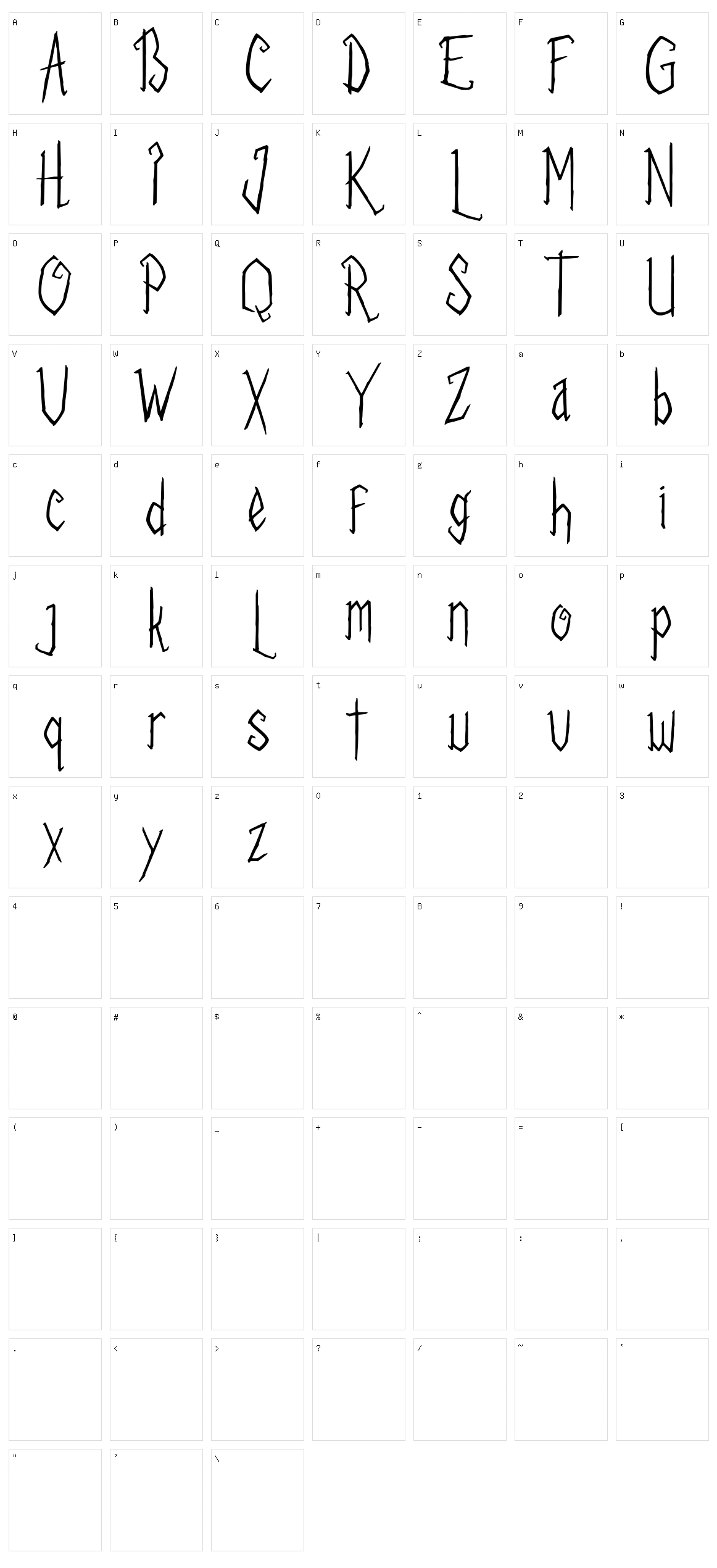
The free font Silent Night is carefully designed by tkztype, showcasing a thoughtful balance of creativity and usability and falls under the Halloween font style. When you download the ZIP file, it contains only 24.07 KB of font files, making it lightweight and quick to download. Please review the license details below to understand permitted usage and distribution rights. If license information is not available, we recommend using this font for personal projects only or contacting the author directly for commercial usage permissions.